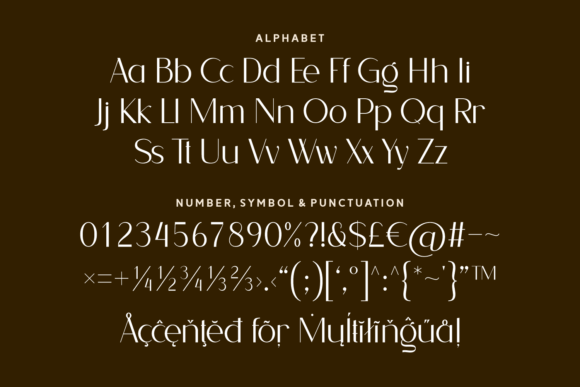
The Elusive Font: A Designer’s Quest for Timeless Elegance
I still remember the countless hours I spent searching for the perfect font for a luxury branding project. My client wanted something that exuded quiet confidence and sophistication, but I was struggling to find a font that fit the bill. That was until I stumbled upon the Brave Ember Font – a refined sans serif font that has since become a staple in my design toolkit.
A First Impression: What Makes Brave Ember Stand Out
At first glance, Brave Ember’s slim structure, high contrast, and sophisticated curves caught my attention. The subtle flair in the letterforms gives it a distinctive voice without sacrificing readability. This font is ideal for luxury branding, fashion editorials, packaging design, and wedding invitations – and for good reason.
- ✨ **Elegant and refined**: Brave Ember’s sleek design makes it perfect for high-end branding and editorial projects.
- ✅ **Highly legible**: Despite its slim structure, the font remains clear and readable, even at smaller sizes.
- 💡 **Versatile**: With its range of OpenType features and glyphs, Brave Ember can be adapted to suit various design needs.
- 🤔 **Limited use in body text**: Due to its slim structure, Brave Ember may not be the best choice for lengthy body text.
- ⚠️ **Kerning issues**: As with any font, some users may experience kerning issues – especially when using certain character combinations.
The Designer Behind the Font: A Backstory
The story behind Brave Ember’s creation is one of passion and dedication. Its designer, inspired by the world of luxury fashion and high-end branding, set out to create a font that would embody the perfect balance of elegance and sophistication. Through countless hours of refinement and iteration, Brave Ember was born – a true masterpiece of typographic design.
Q: What makes Brave Ember suitable for luxury branding?
A: Brave Ember’s sleek design, high contrast, and sophisticated curves make it an ideal choice for luxury branding projects.
Q: Can I use Brave Ember for body text?
A: While Brave Ember is highly legible, its slim structure may not make it the best choice for lengthy body text.
Q: Does Brave Ember support OpenType features?
A: Yes, Brave Ember supports a range of OpenType features, including stylistic alternates and glyphs.
Q: Is Brave Ember suitable for digital use?
A: Yes, Brave Ember is designed to be versatile and can be used for both print and digital projects.